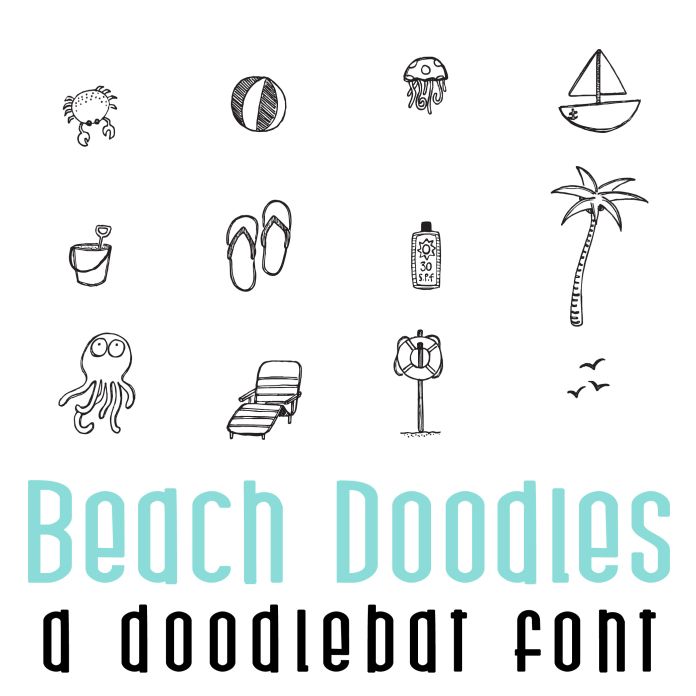
This fun doodlebat font features 36 different beach vacation doodles, perfect for cards, crafts, gifts, decor, scrapbook pages, planner stickers, and more! Glyphs are A-Z and 0-9.